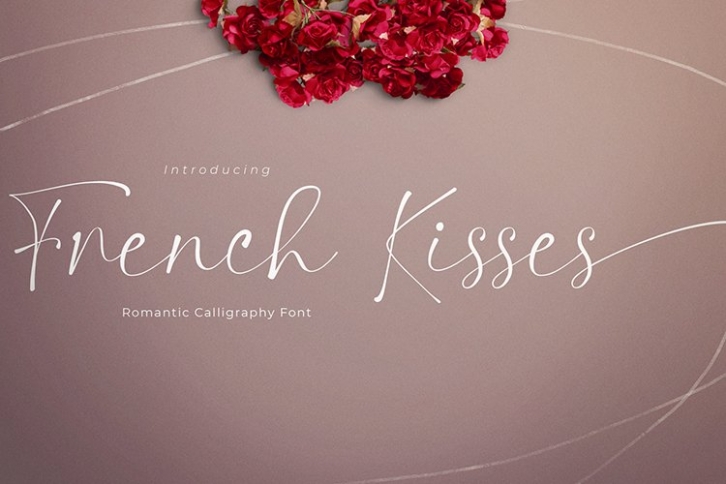
French Kisses is a beautiful font that was designed by plusstore. It's a great choice for designers and creatives who need such a font. It was released on May 29, 2022 and the file size is 9.69 MB. French Kisses may give a more youthful, expressive and casual look to your project. It is a very beautiful, refined, elegant, and high-quality font.